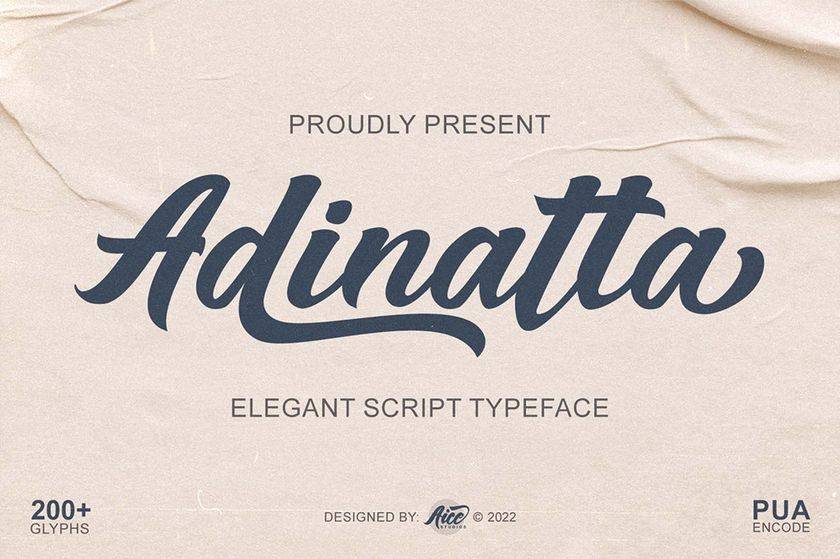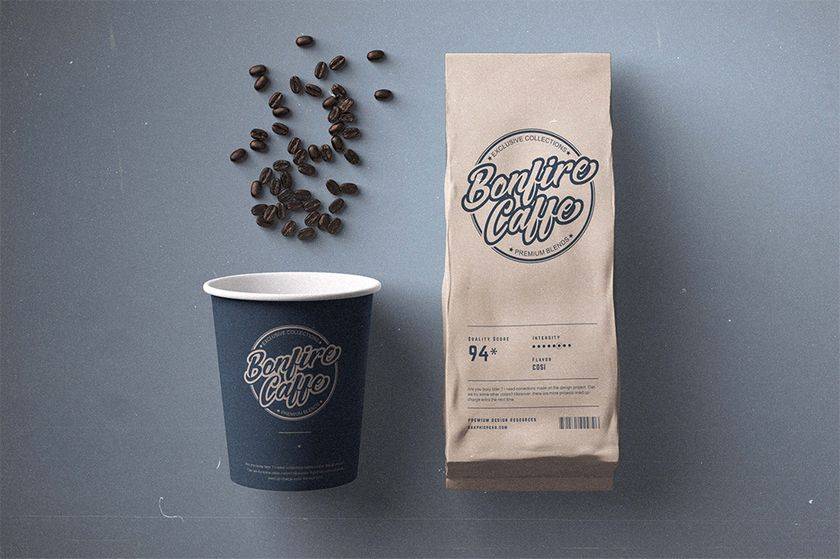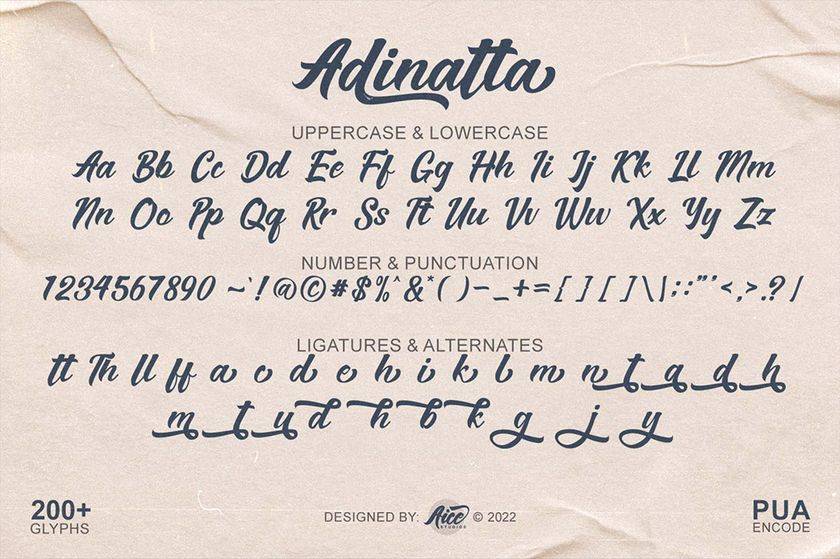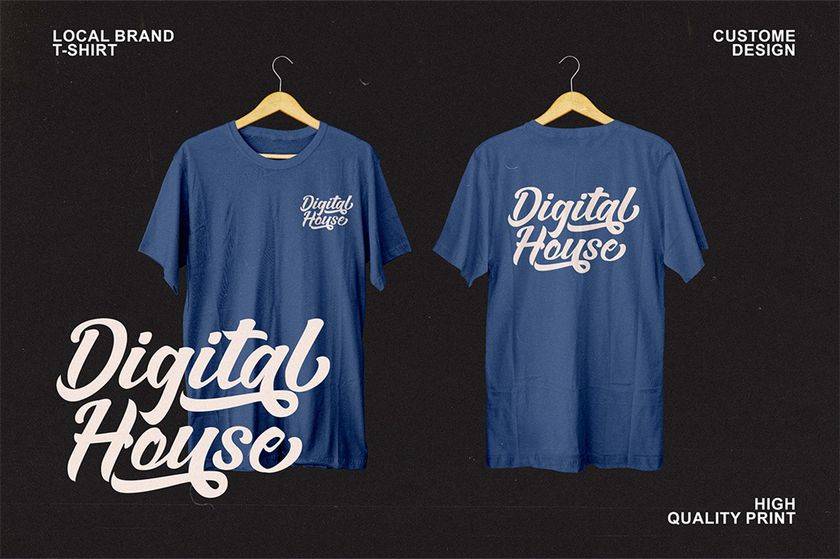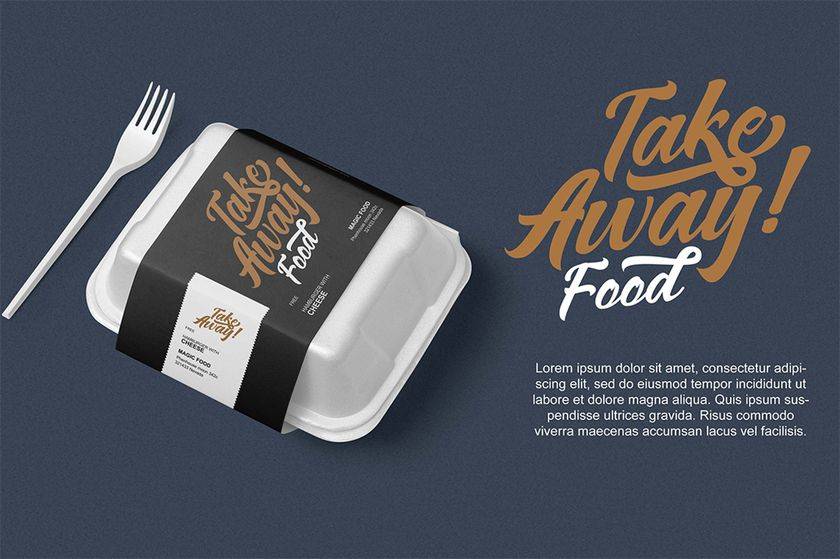
Adinatta is a bold, flowing script font with a lively and elegant personality. Its smooth, slightly slanted strokes and connected letterforms give it a handwritten, stylish feel that works beautifully for branding, invitations, and headlines where a touch of sophistication and warmth is desired. This font shines in designs aiming for a personal yet polished look, making it ideal for fashion, lifestyle, and creative projects.
Adinatta Font
About Adinatta Font
| Font family | Adinatta Font |
| Designer | Irawan Fuzha |